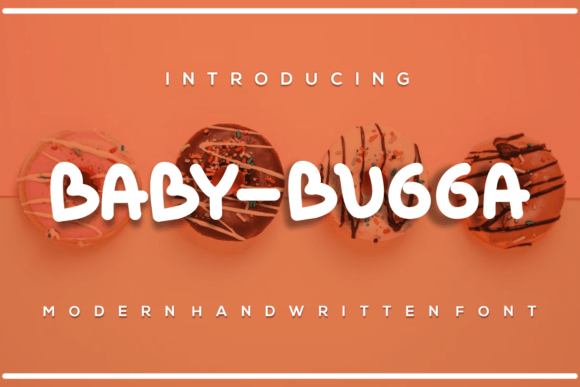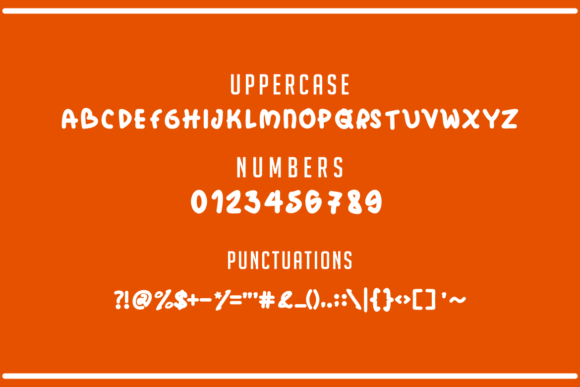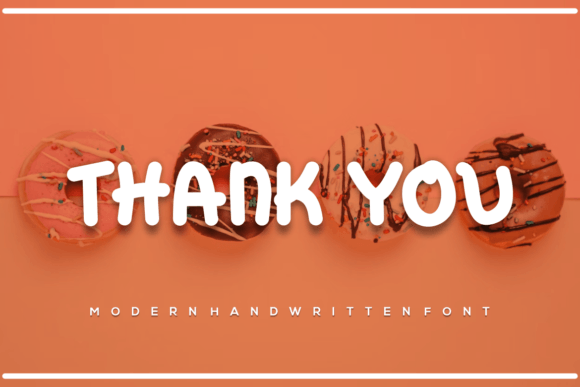
Introduction to Baby Bugga Font
Baby Bugga is a fun and whimsical handwritten font.
Playful and a bit quirky, this font will brighten up each of your designs Add it confidently to your projects, and you will love the results.
Baby Bugga Font offers exceptional quality and versatility, making it a valuable addition to your design toolkit. Whether you’re creating for personal projects or commercial use, Baby Bugga Font delivers professional results.